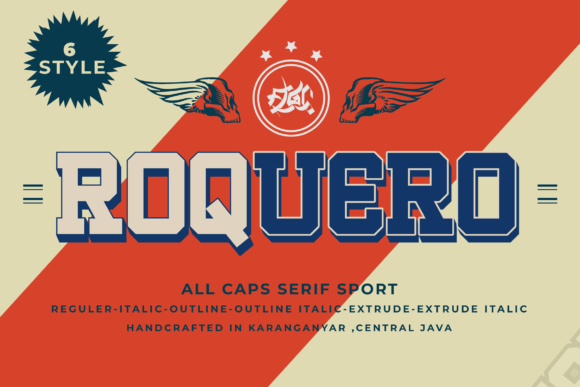
Hey there, typography enthusiasts, artists, and creators! Meet Roquero, an exceptional serif font family designed by the visionary Fallengraphic. Its aesthetic is distinctively rigid and brimming with dynamism, making it an outstanding contender for any project exuding an athletic spirit.
Feast your eyes on an array of its versions, each carrying its own personality. Explore the bold and fierce, the slender and graceful, the casual and the classy, or even the extrude and italic variations. The sheer depth and diversity of Roquero will leave you spellbound.
Roquero is more than just a font; it's a tool that unlocks your creativity. Its versatile nature allows you to effortlessly craft eye-catching logos, posters, flyers, invitations, social media graphics, and so much more. Imagine the possibilities of creating captivating visual identities, evoking strong emotions, and leaving an indelible mark on your audience.
Unlock the boundless potential of Roquero and witness how it transforms your creative endeavors into masterpieces. Its powerful charm will elevate your designs, whether you're a seasoned pro or just starting your journey into the world of typography.
Don't let ordinary fonts hold you back. Embrace Roquero and embark on a remarkable journey where typography meets passion and innovation. Equip yourself with the ultimate weapon for captivating designs and unleash your creative prowess.